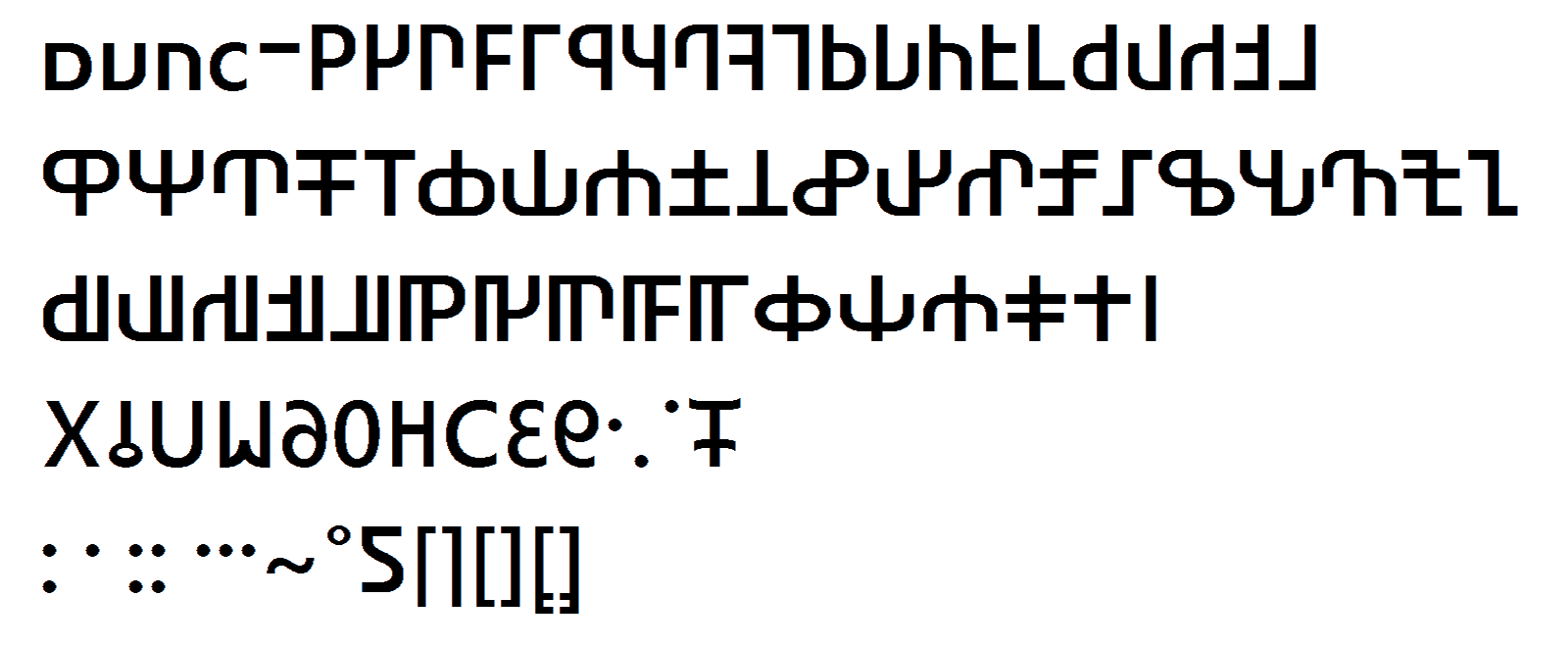
The "fixed height" companion case of regular Musahate font, Musahate Rubric is used for headers in texts set in Musahate.Related content
I like the look of this a lot! Aesthetically pleasing and an organic whole.